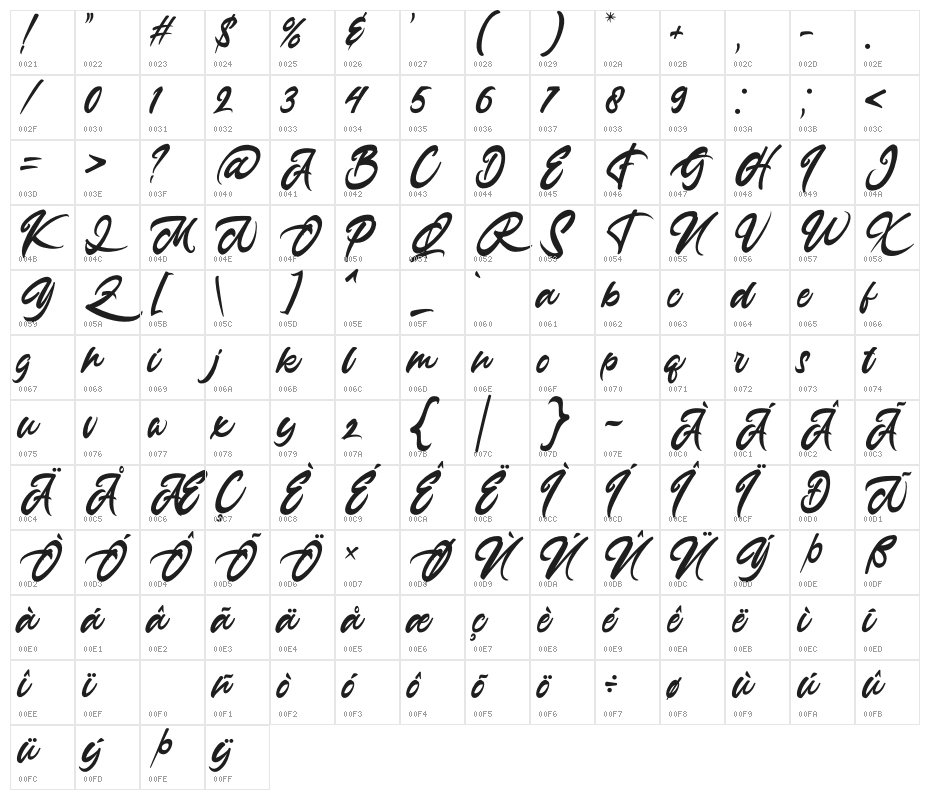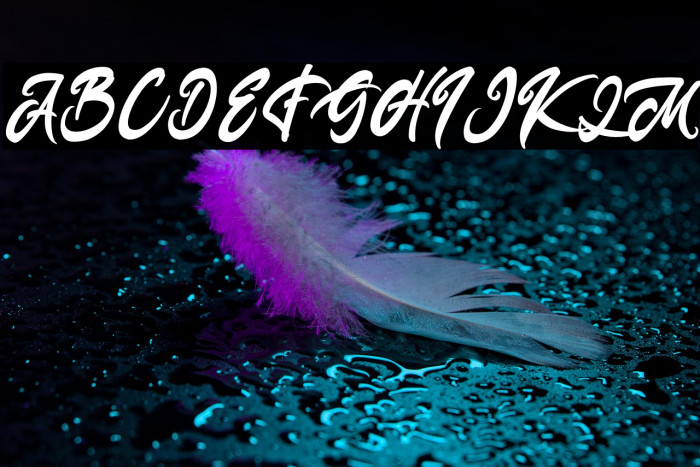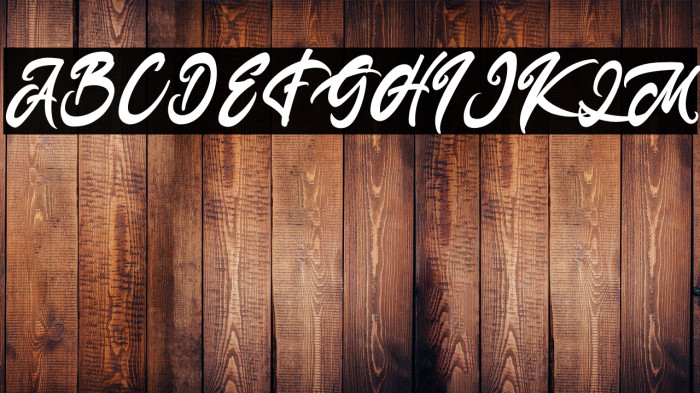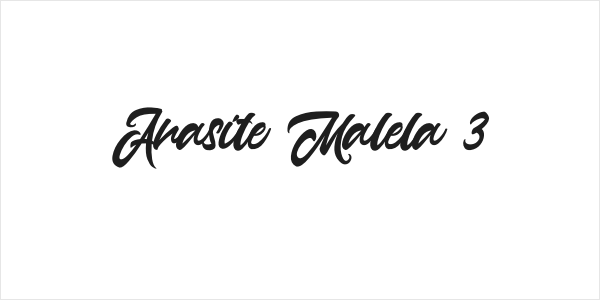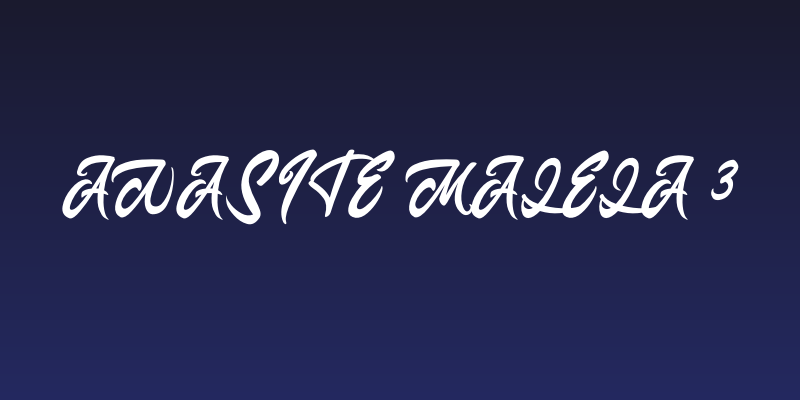
Anasite Malela 3 Font
Anasite Malela 3 Description
This font features a dynamic and expressive script style, characterized by its fluid and cursive letterforms. The uppercase letters exhibit a sense of elegance and flair with sweeping curves and loops, while the lowercase letters maintain a consistent flow, enhancing readability. The numerals are bold and slightly slanted, complementing the overall style. Special characters are creatively integrated, maintaining the font's artistic appeal. This font's bold strokes and high contrast between thick and thin lines contribute to its dramatic and eye-catching appearance, making it suitable for creative and decorative applications.